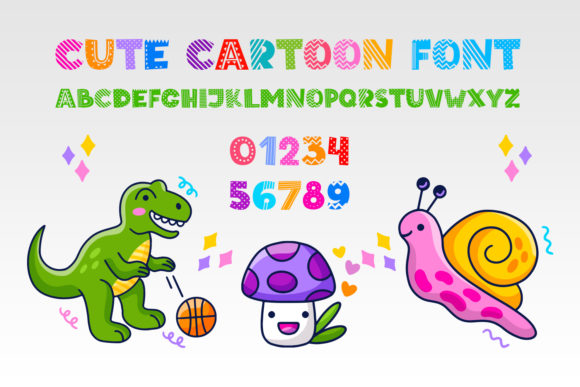
Dive into the enchanting world of Cute Cartoon, a display font that embodies the spirit of imagination and creativity. Its playful, quirky strokes will captivate your heart, making it the perfect choice for any project that seeks to connect with the innocence of childhood.
With its whimsical and charming appearance, Cute Cartoon is the ideal companion for school projects, bringing joy and enthusiasm to every assignment. Let its lively curves and adorable details spark a passion for learning, making each project a memorable adventure.
Whether you're creating vibrant posters, eye-catching presentations, or personalized greeting cards, Cute Cartoon will add a touch of magic to your designs. Its ability to convey a range of emotions, from lighthearted playfulness to heartfelt warmth, will leave a lasting impression on your audience.
Immerse yourself in the world of Cute Cartoon and let its captivating charm elevate your creative endeavors to new heights. With its effortless ability to evoke smiles and inspire imagination, this font will become your go-to choice for any project that seeks to celebrate the boundless spirit of childhood.